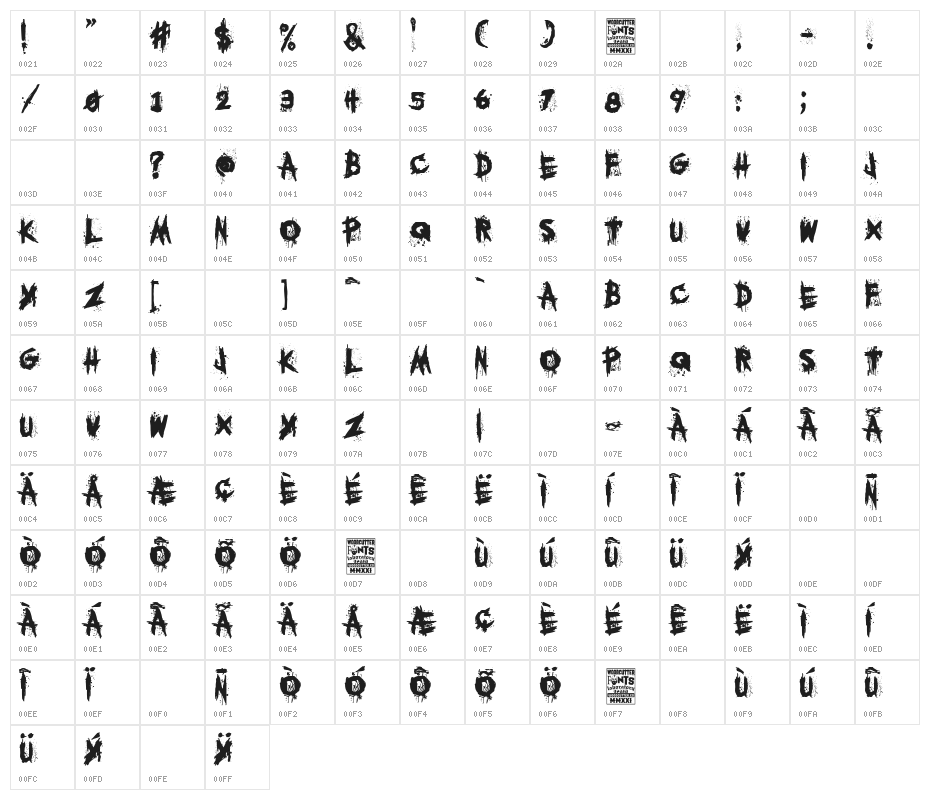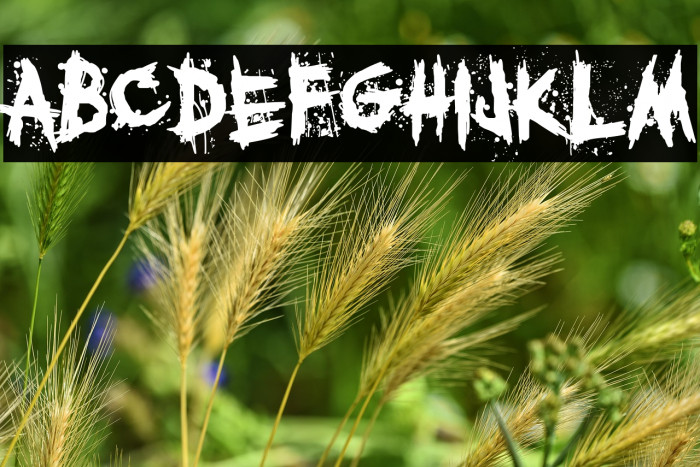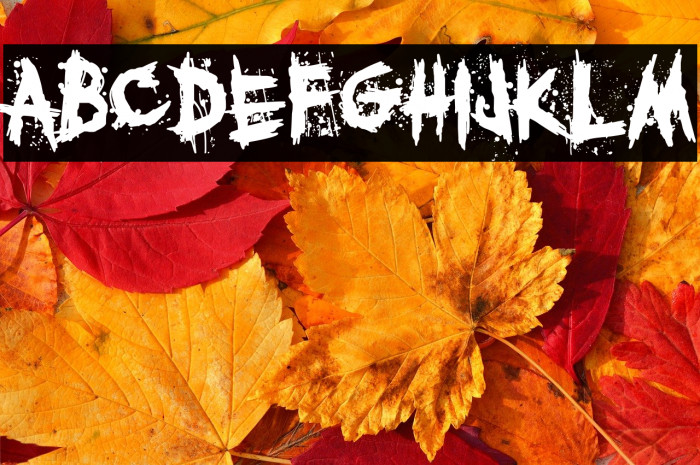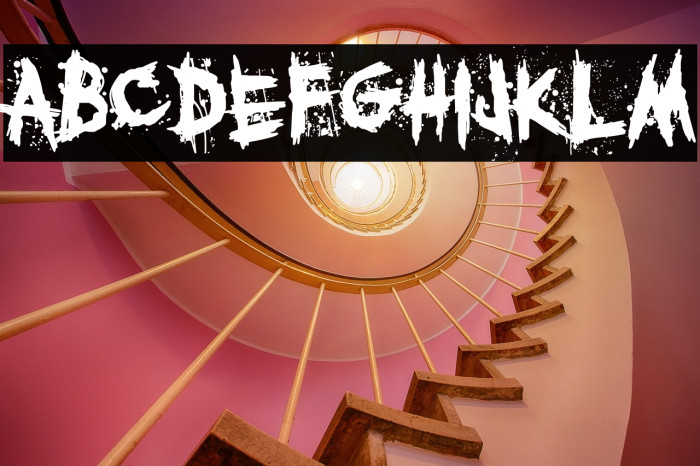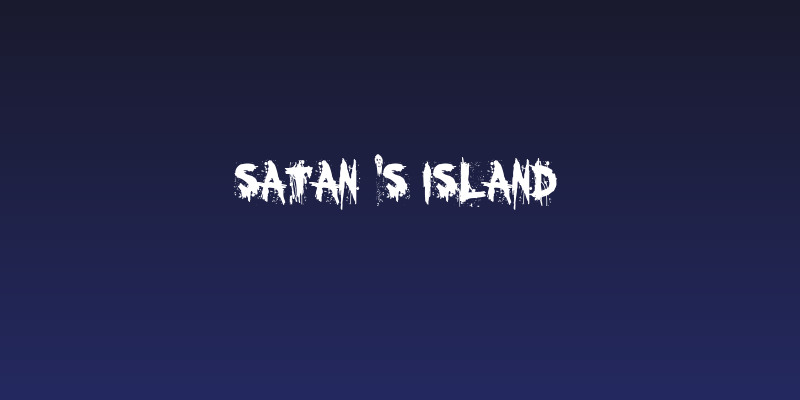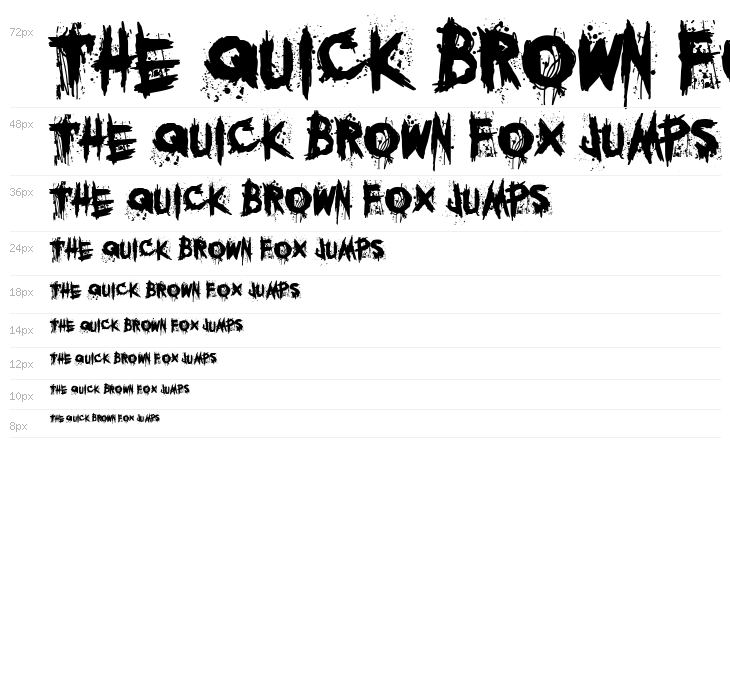
satan's island Font
satan's island Description
This font features a bold and aggressive style with a grungy, distressed appearance. The characters are jagged and irregular, resembling splatters or drips, which gives it a chaotic and rebellious feel. The uppercase and lowercase letters maintain a consistent theme, with sharp edges and uneven strokes that create a sense of movement and energy. The numbers and special characters follow the same aesthetic, making the font cohesive throughout. Its unique design makes it stand out, perfect for projects that require a dramatic and edgy look.
| Use Case | Logos, Posters, Headlines |
| Proposed Projects | Ideal for music album covers, horror movie posters, edgy branding, and streetwear designs. |